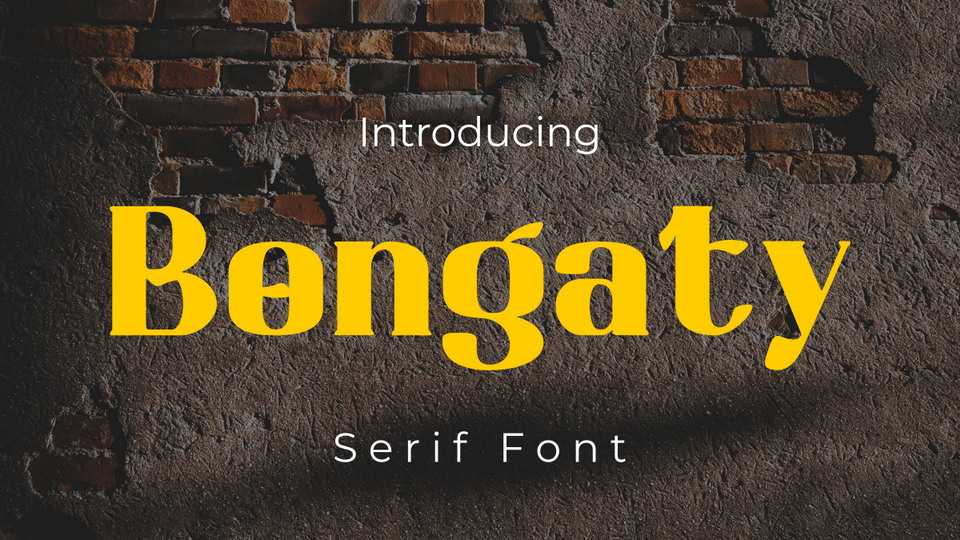
Bongaty Serif Font › Fontesk – Download Grátis
Download Bongaty font, a modern and assertive display typeface. Featuring the perfect amount of trendiness, Bongaty font will make your designs come to life.
Designer: Rvandtype Studio